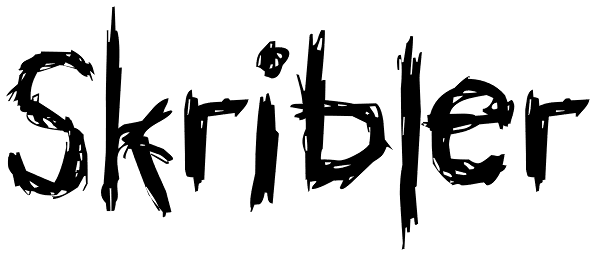
Skribler
Here's a scratchy skribly font you can use to make something look grungy or use it reversed and it looks like it was scratched on a wall or something.
Skribler Font